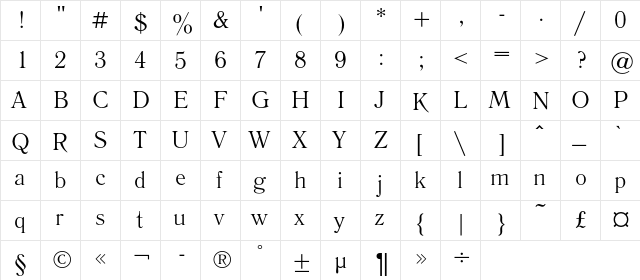
LiteraturnayaC Regular
Design Context for LiteraturnayaC Typeface
LiteraturnayaC offers clean, dependable letterforms without strong stylistic allegiance, making it a practical choice for designers who need flexibility.